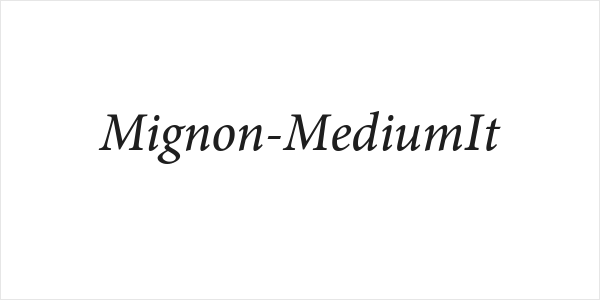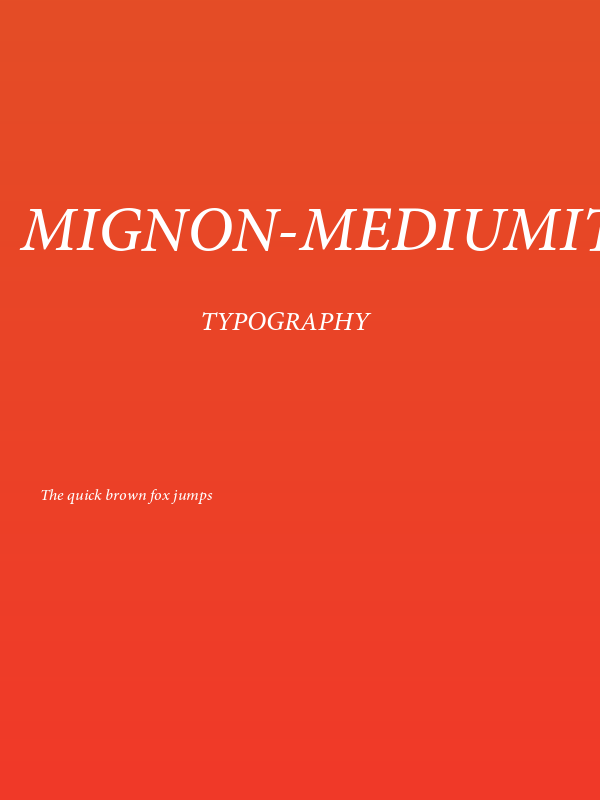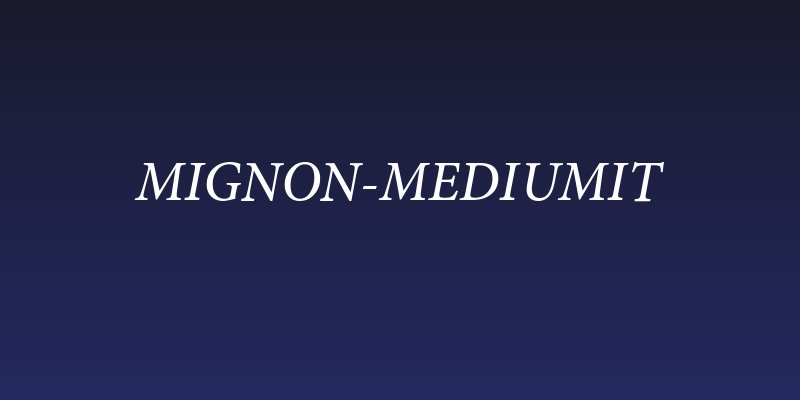
Mignon-MediumIt Font
Mignon-MediumIt Description
This font features a classic serif style with a slight italic slant, giving it an elegant and sophisticated appearance. The characters are well-defined with moderate contrast between thick and thin strokes, enhancing readability while maintaining a stylish look. The uppercase letters are slightly taller than the lowercase, and the numerals are proportional, aligning well with the overall design. Special characters are included, maintaining the font's cohesive aesthetic. The font's design is suitable for both digital and print media, offering versatility in various applications.